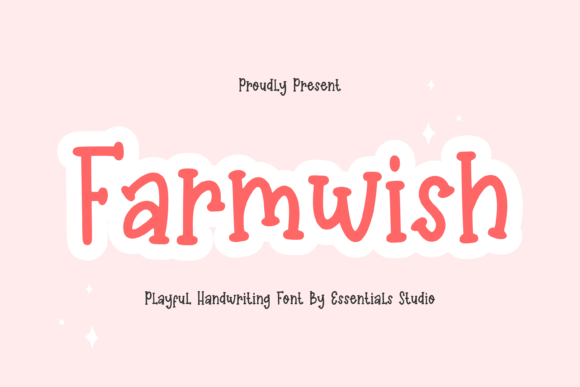
Introduction to Farmwish Font
Farmwish Is A Playful Serif Font Farmwish is perfect for product packaging, branding project, magazines, social media, weddings, or just used to express words above the background.